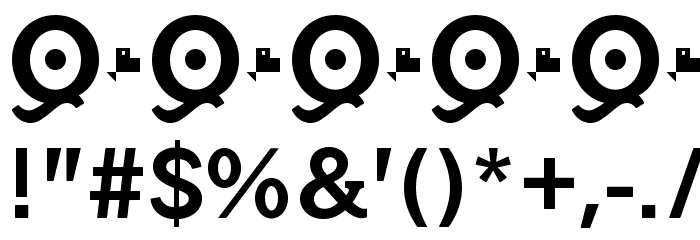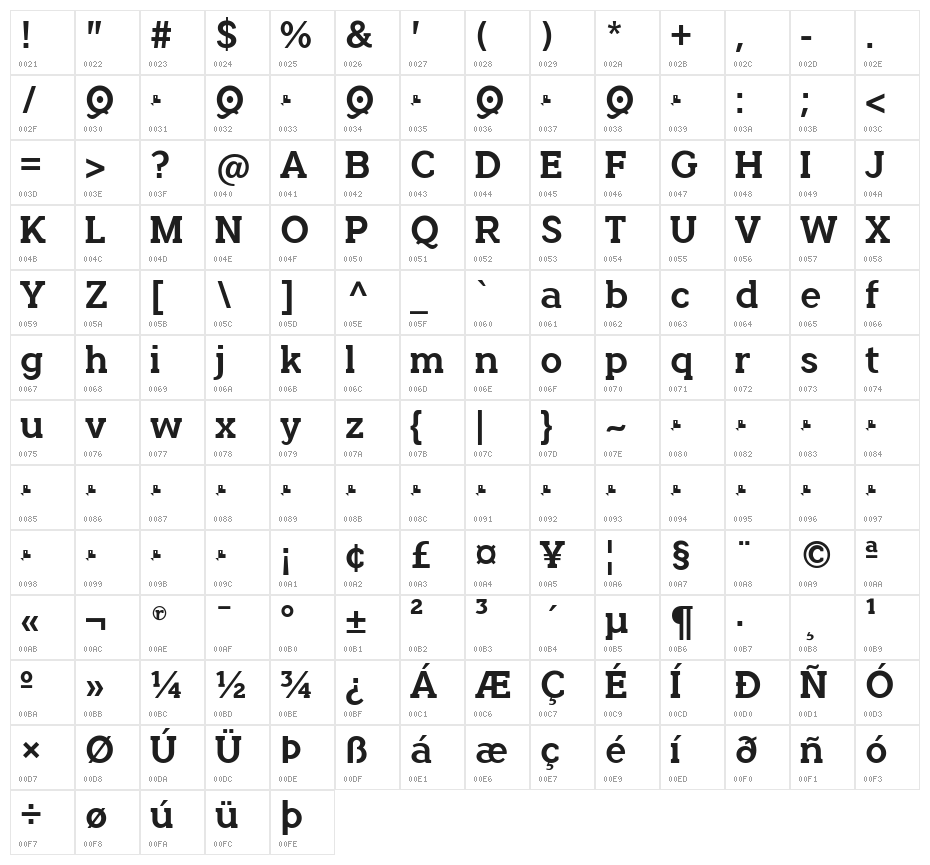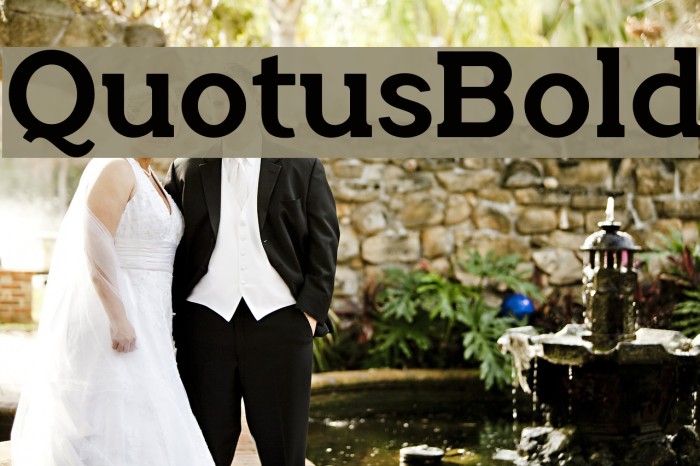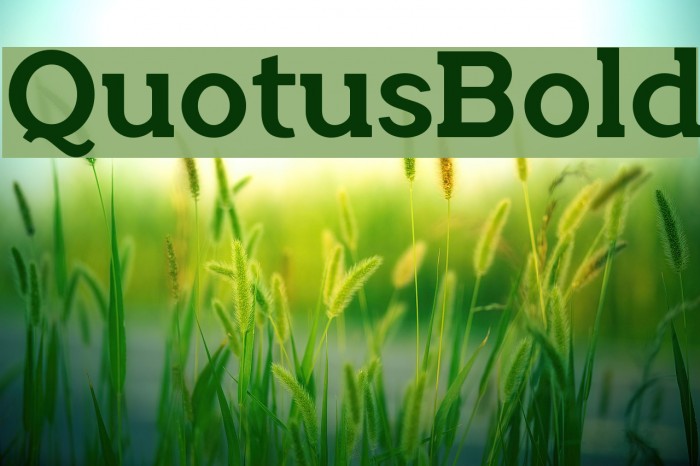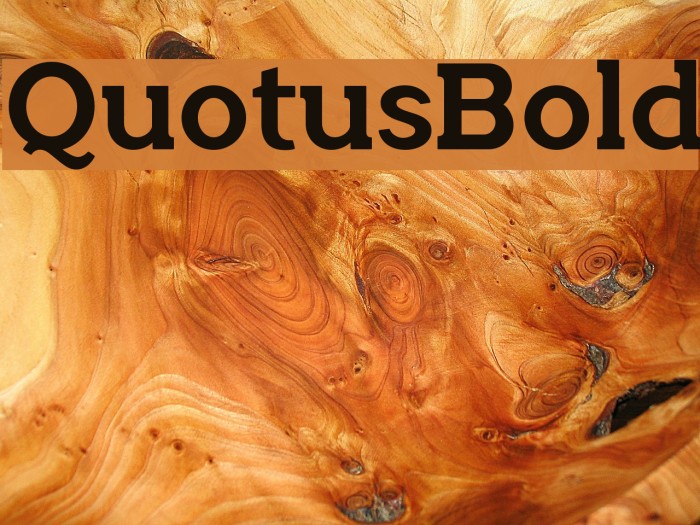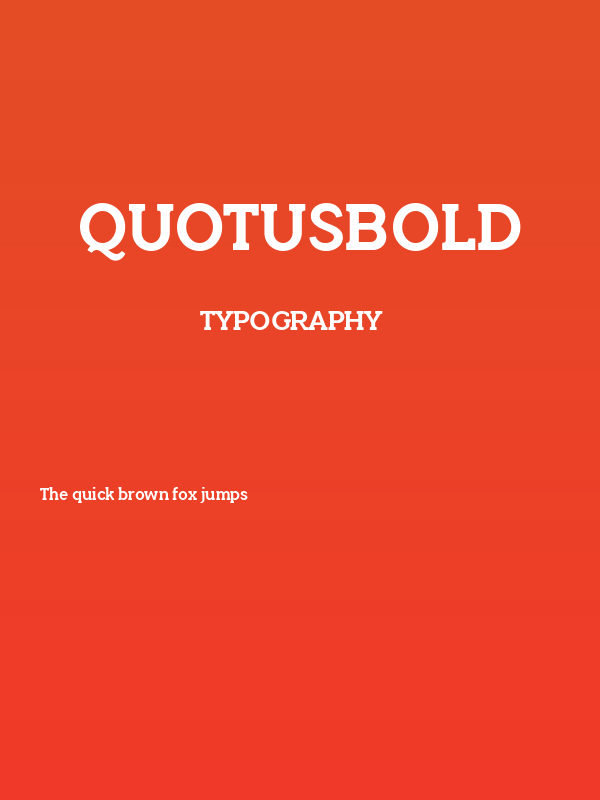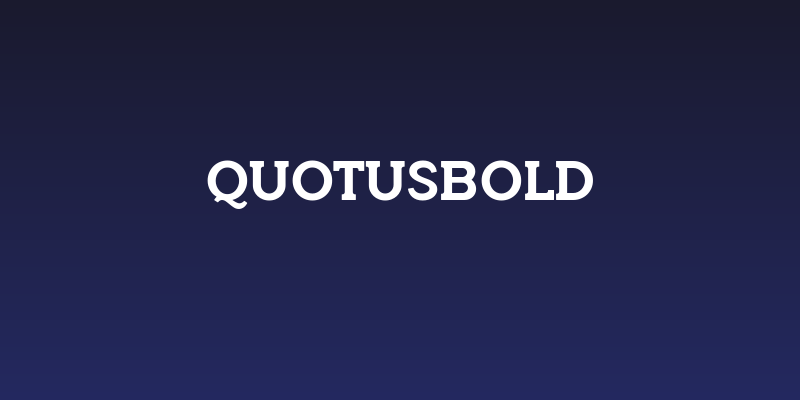
QuotusBold Font
QuotusBold Description
This font features a bold and robust design with strong, thick strokes that convey a sense of authority and confidence. The characters are well-defined with a consistent weight throughout, making it highly legible. The uppercase letters are particularly striking, with a commanding presence that is ideal for headlines or titles. The lowercase letters maintain the same boldness, ensuring readability in longer texts. The numerals and special characters are equally bold, providing a cohesive look across all elements. The overall style is modern yet timeless, suitable for a variety of design applications.
deFharo - Fernando Haro - defharo.com
| Proposed Projects | Ideal for branding, headlines, posters, and any design requiring a strong visual impact. |